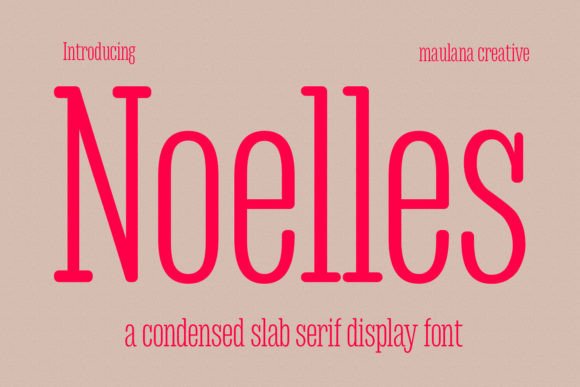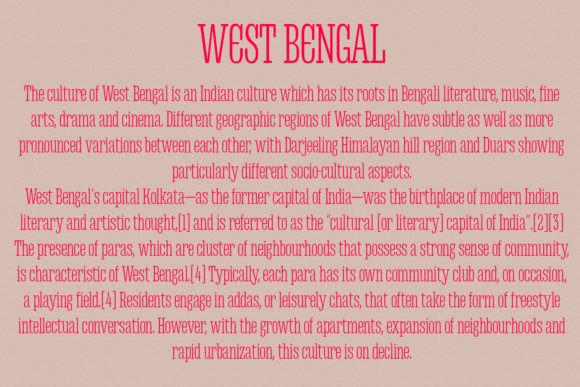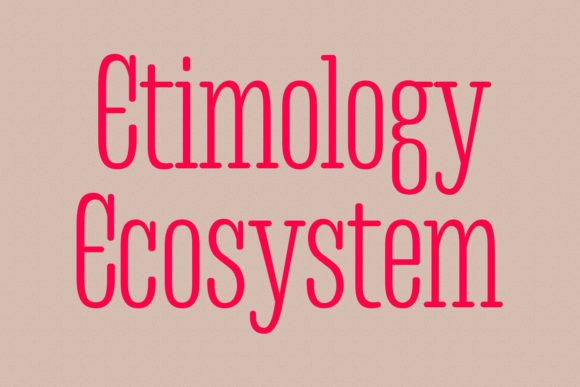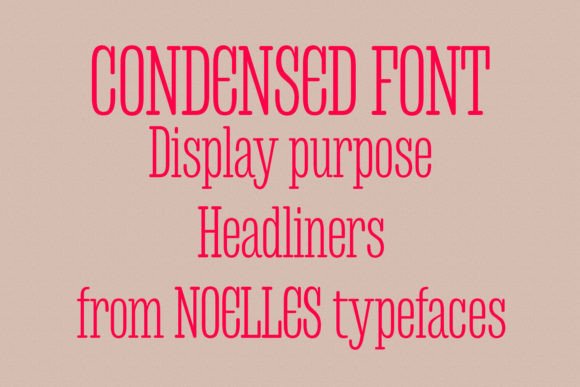
Noelles Font: A Bold Display Font for Modern Logo Design & Branding
About the Noelles Font
Elevate your designs with Noelles Font, a font that combines sophistication with readability. Noelles is a classical western slab serif font. It is suitable for logo design, social media, movie titles, books titles, web design, business card, flyers and more.
Noelles’ strong, bold strokes make it ideal for headlines, posters, and branding projects requiring a commanding presence. Its classical feel lends itself well to luxury goods packaging or projects with a vintage aesthetic. However, the slab serifs can be visually heavy, making it less suitable for body text or UI elements where readability is paramount. Avoid using it for long paragraphs or small sizes.
This font projects a confident and sophisticated personality. It works particularly well for brands aiming for a classic yet modern feel, such as high-end fashion, whiskey distilleries, or architectural firms.
To balance Noelles’ boldness, pair it with a clean sans-serif like Open Sans for body text or a delicate script font like Great Vibes for added elegance in secondary text elements. Alternatively, a geometric sans-serif such as Futura can provide a modern contrast.